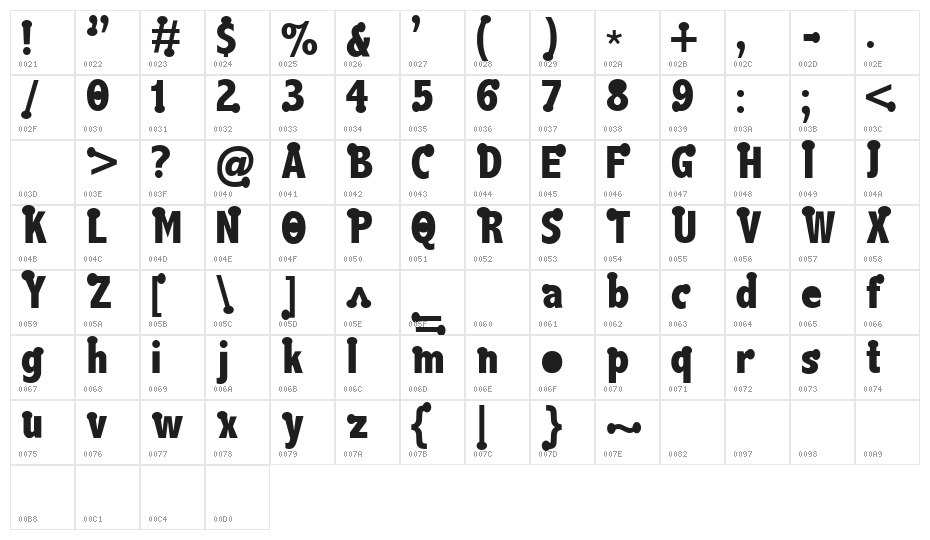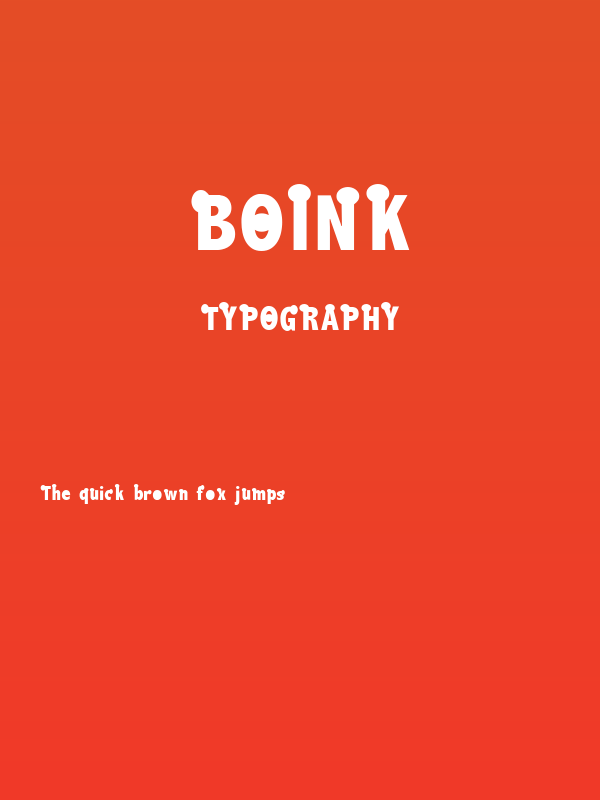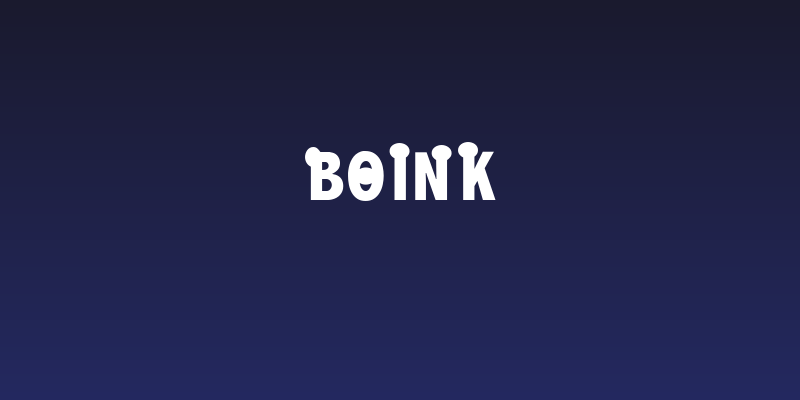
Boink Font
Boink Description
This font features a playful and bold design with rounded terminals and a strong presence. The characters are thick and robust, giving them a cartoonish and friendly appearance. The uppercase and lowercase letters maintain a consistent weight, while the numbers and special characters are designed to match the overall style. The font's unique character is highlighted by its exaggerated curves and whimsical flair, making it stand out in any design. Its boldness and distinctiveness make it suitable for projects that require a fun and engaging typeface.
| Proposed Projects | Ideal for children's books, comic strips, playful branding, and posters. |